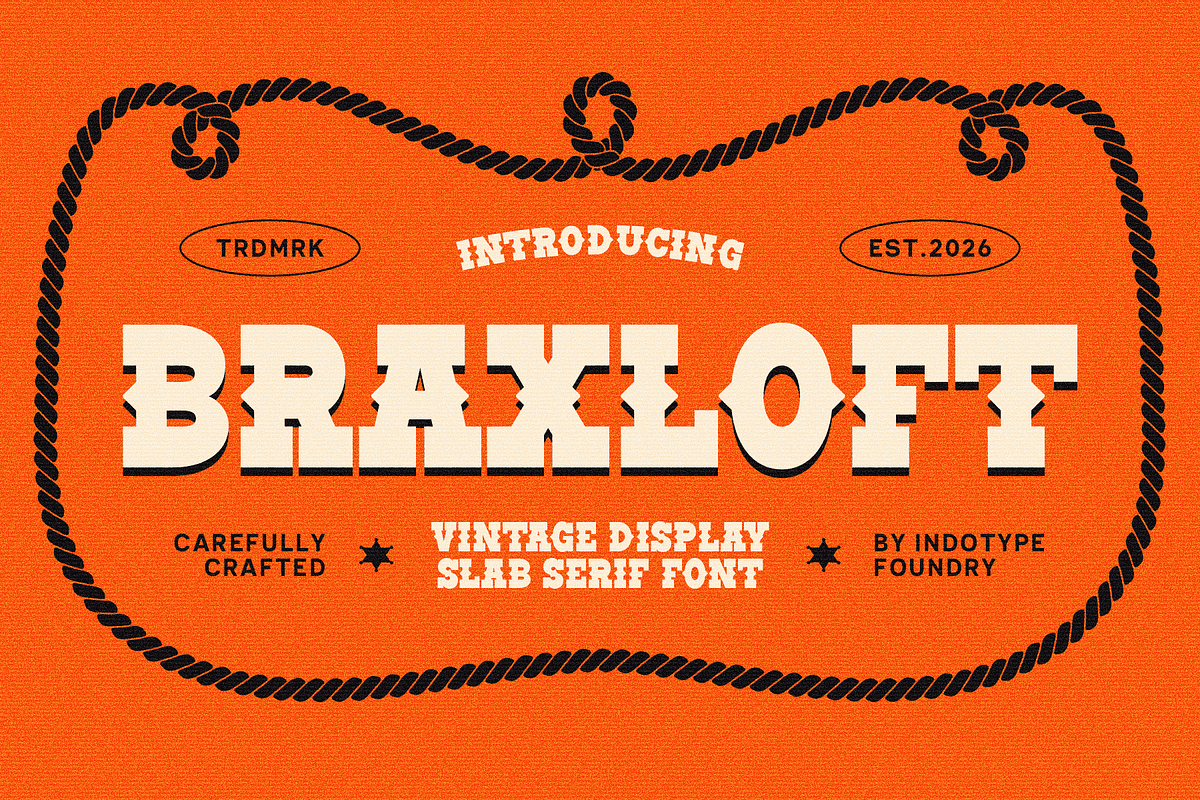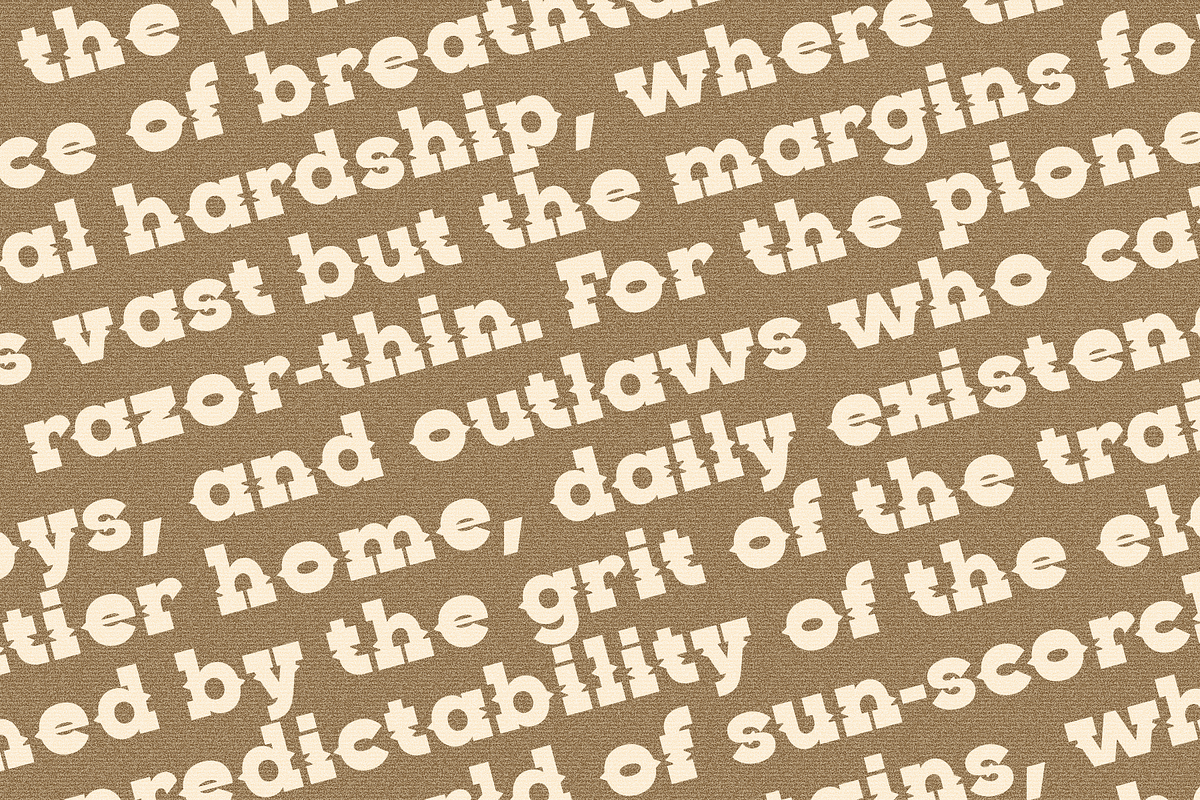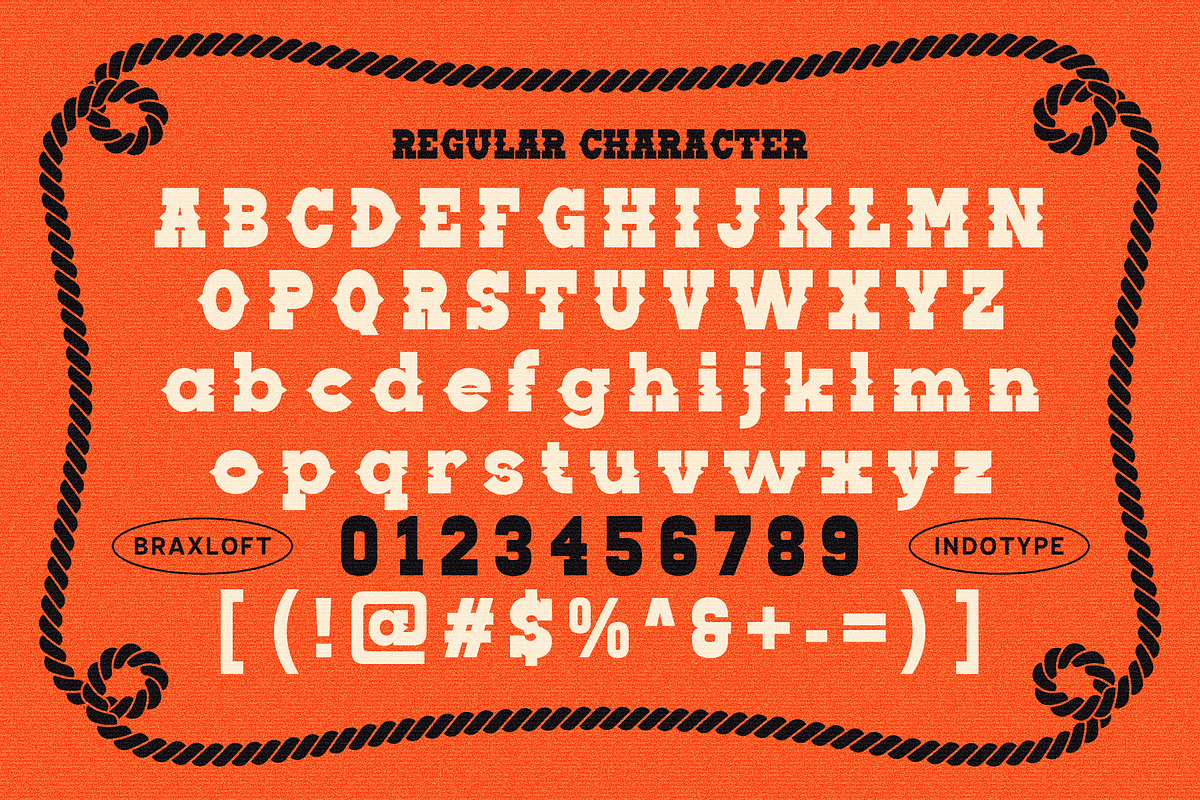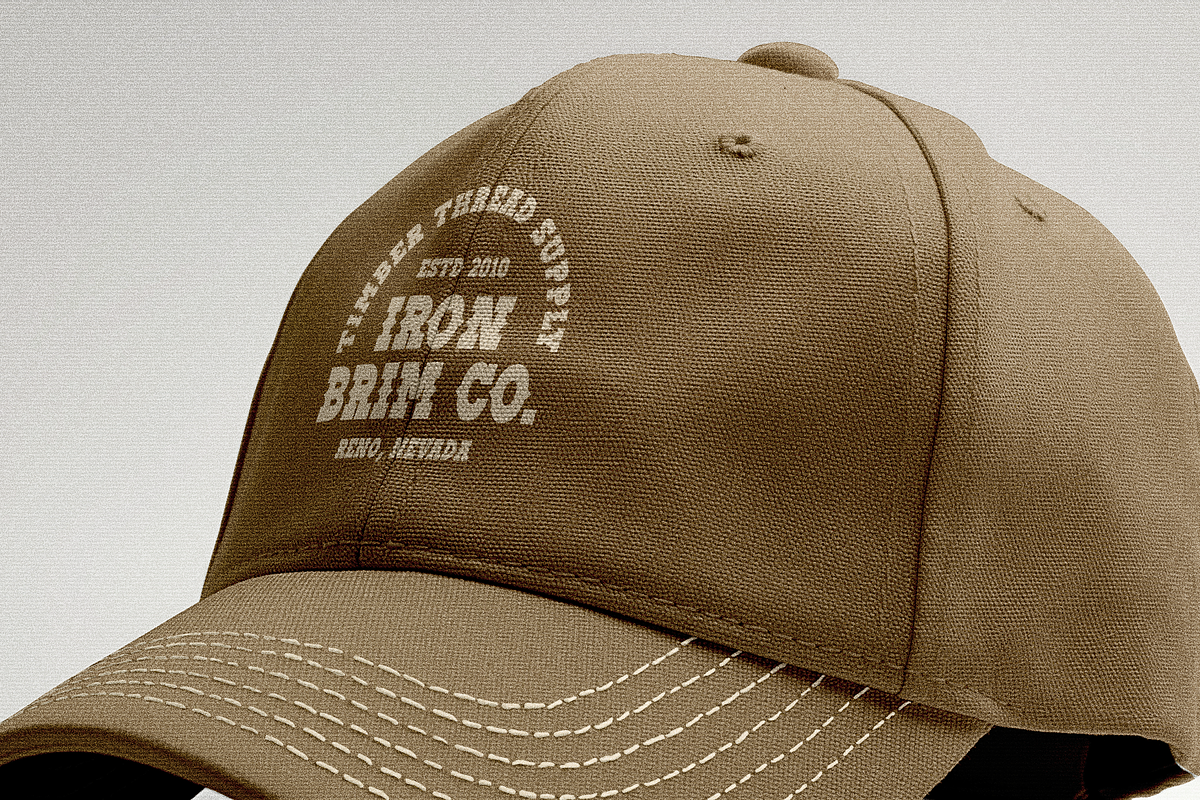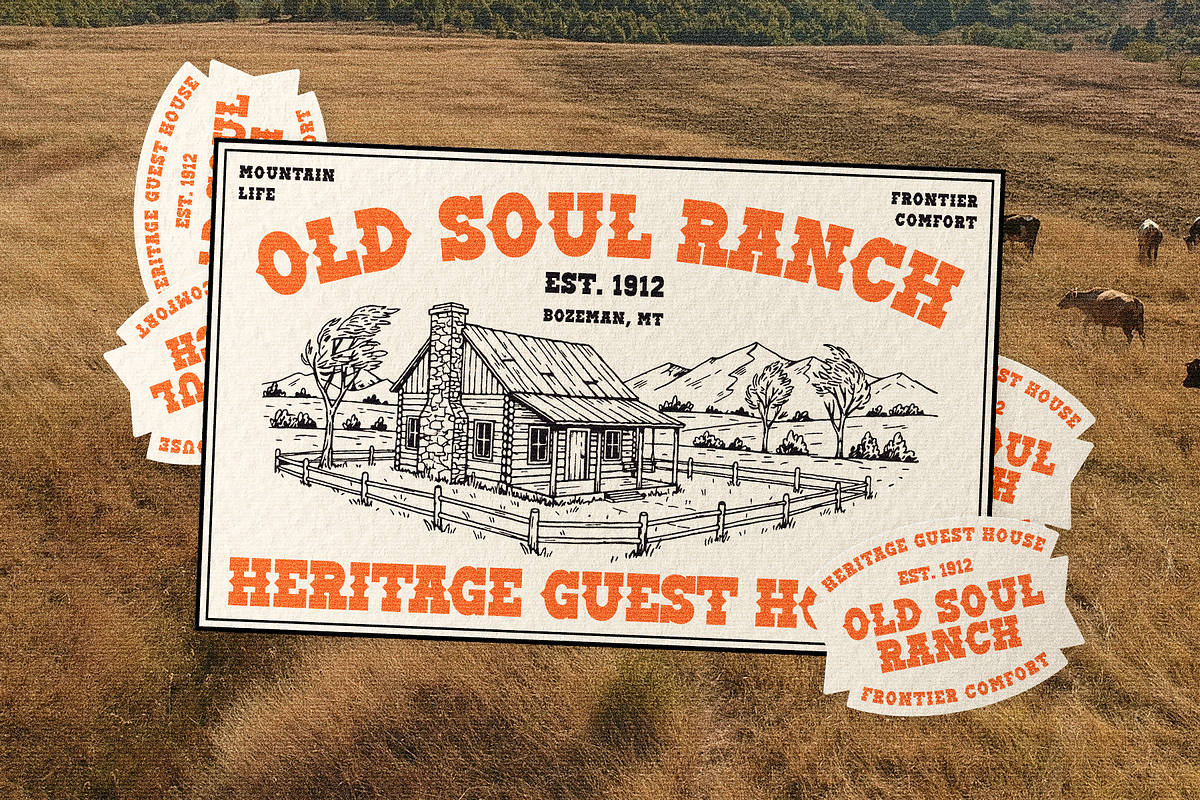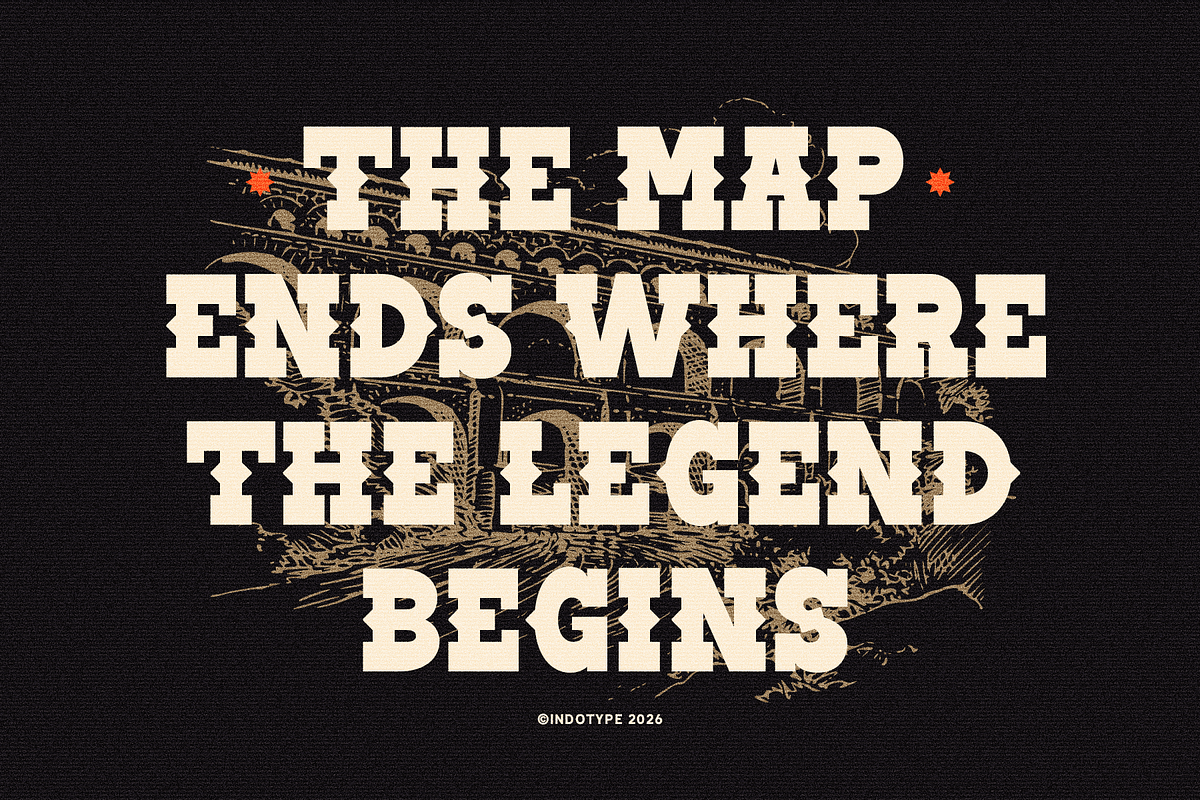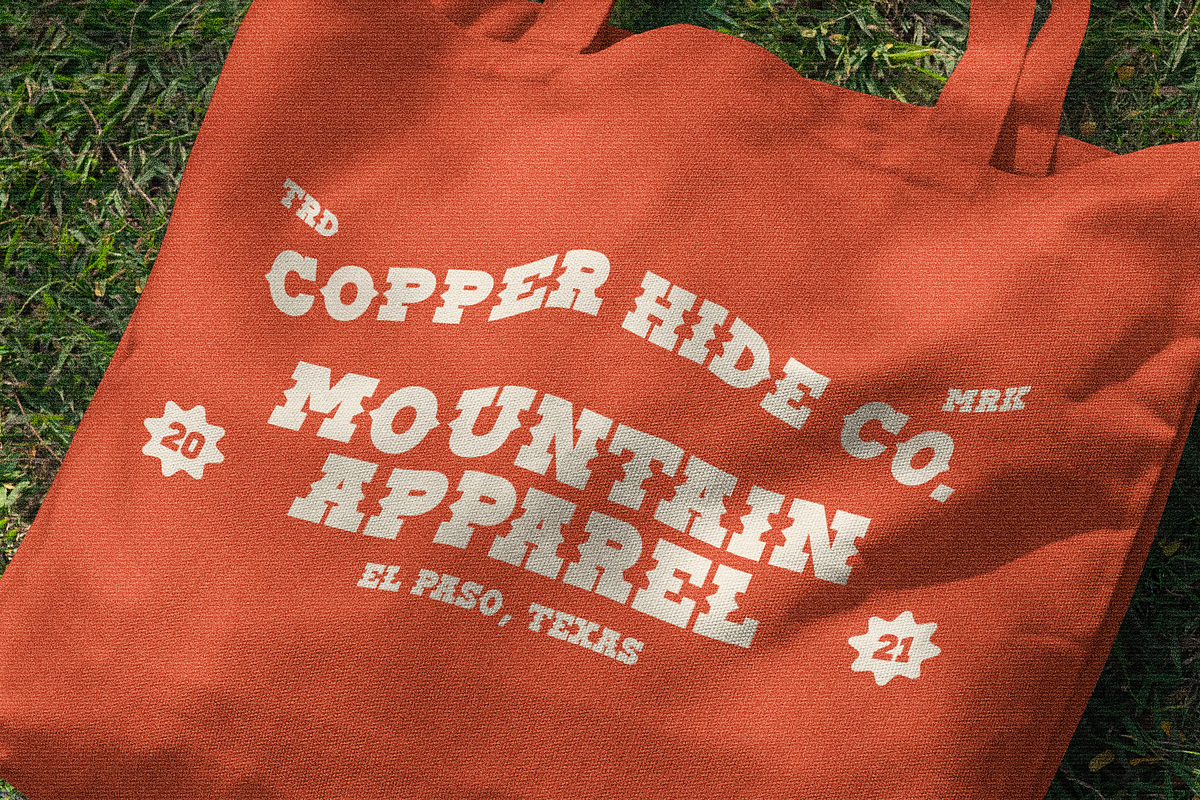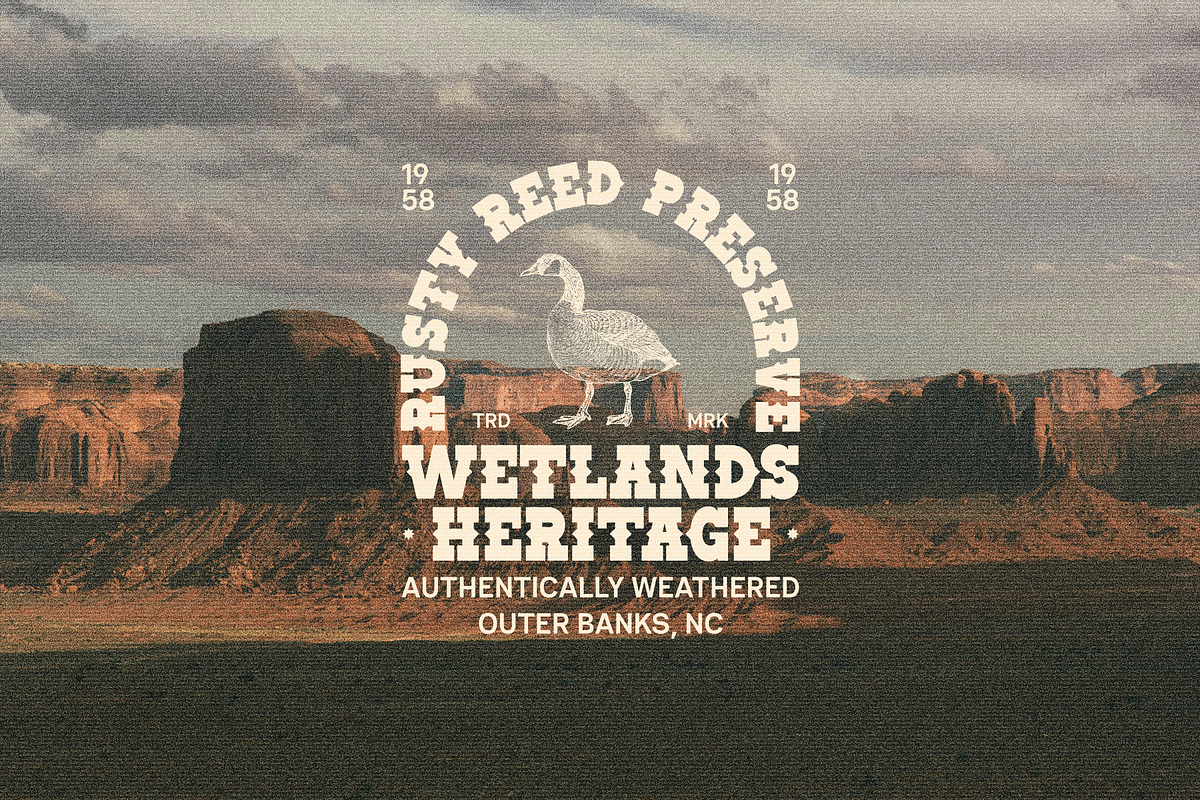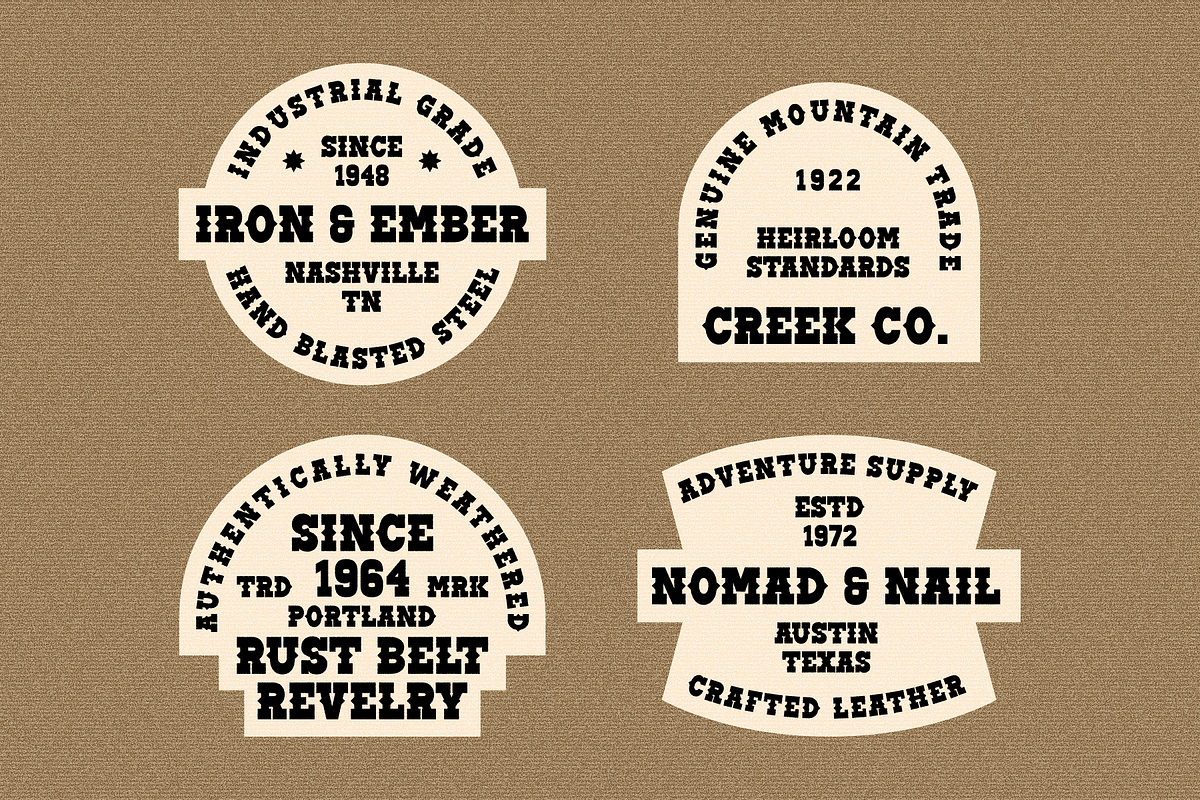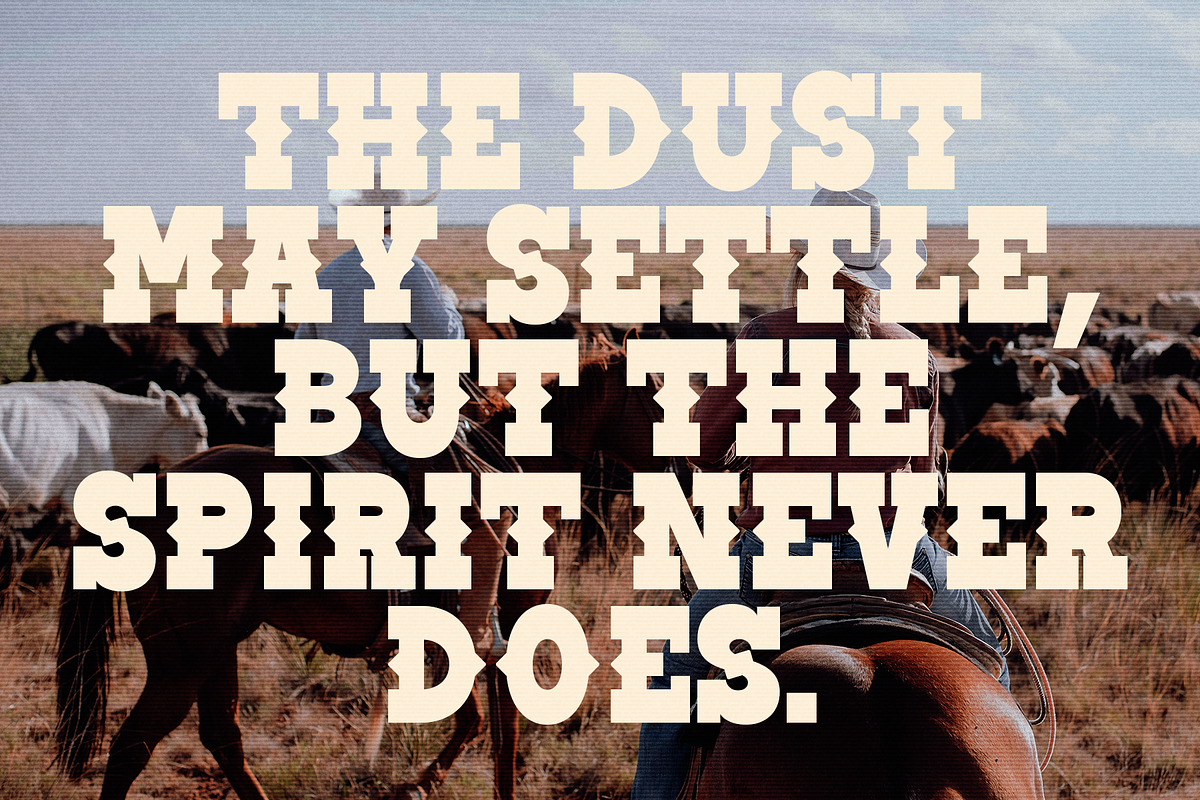
Braxloft - Vintage Slab Serif
Braxloft is a boldly crafted slab serif typeface that channels the spirit of the American frontier—rugged, honest, and built to last. With its sturdy block-like serifs, weathered texture, and commanding presence, this font evokes the typography of vintage wanted posters, frontier signage, and rustic timber branding. Every letterform feels hand-carved from aged wood, bearing the marks of time and character. Carefully crafted with authentic vintage details, Braxloft brings warmth, history, and undeniable personality to any design. Perfect for whiskey labels, craft breweries, western-inspired branding, rustic hospitality, and any project that aims to tell a story of tradition, craftsmanship, and frontier grit. It’s more than a font—it’s a piece of American heritage.
- Ideal for: Whiskey & Spirits Labeling, Craft Brewery Branding, Western-Themed Designs, Rustic Hospitality & Lodging, Vintage Signage & Posters, Outdoor & Adventure Brands.
- Classification: Slab Serif, Western, Vintage, Display, Rustic.
- Attributes: Rugged, Honest, Weathered, Hand-Carved, Authentic, Timeless, Bold.